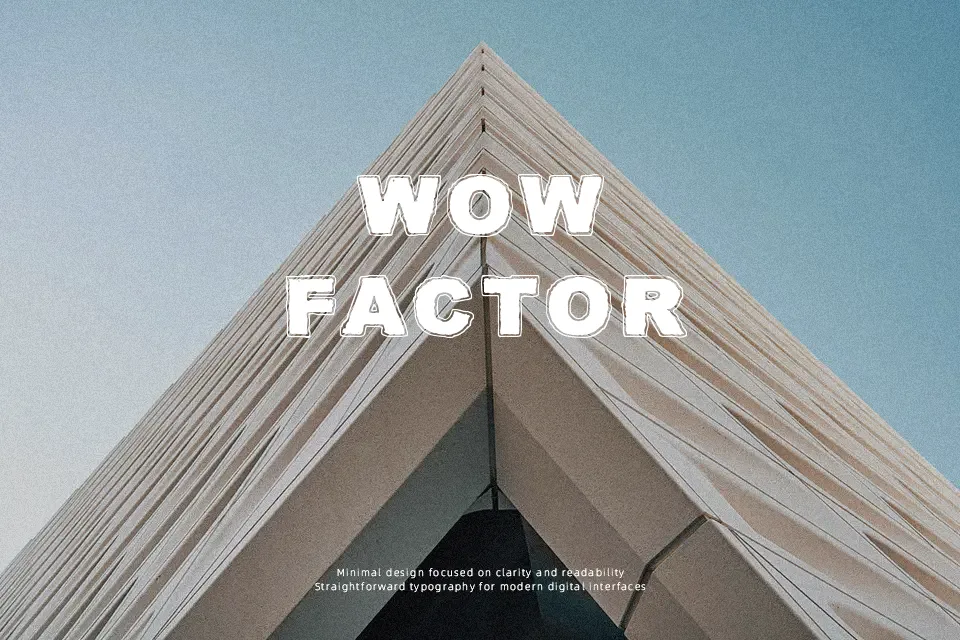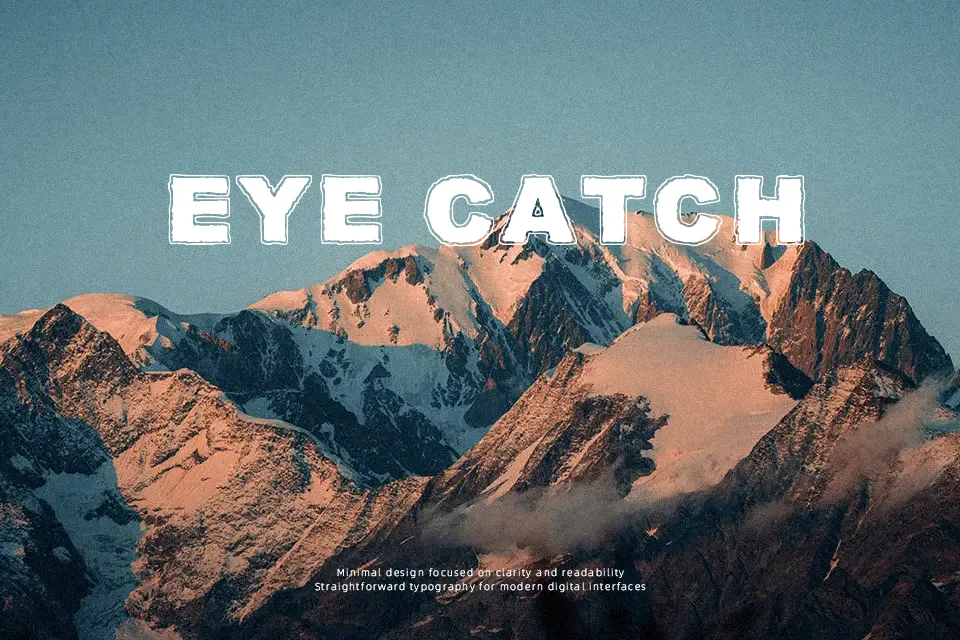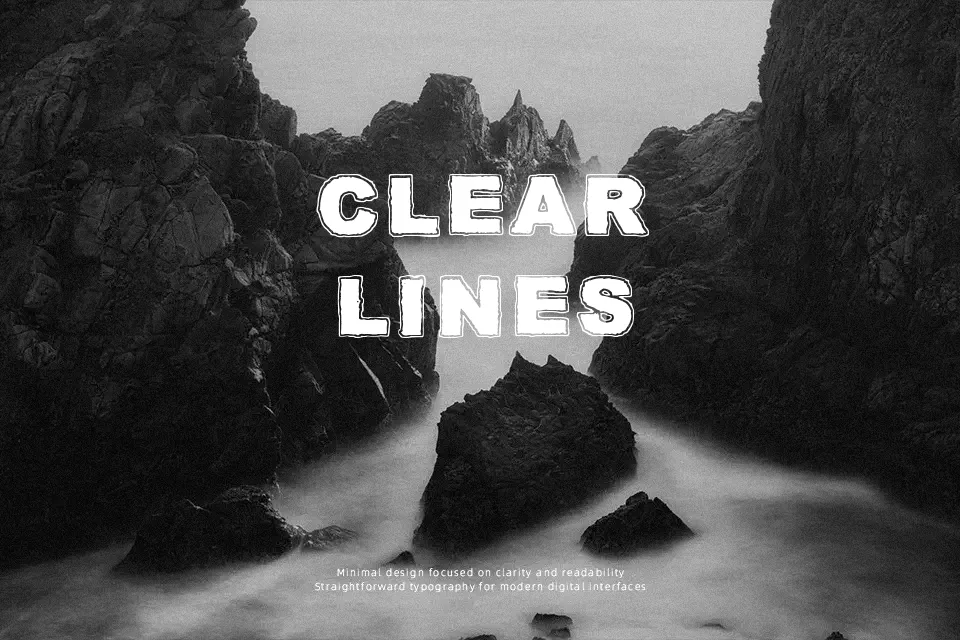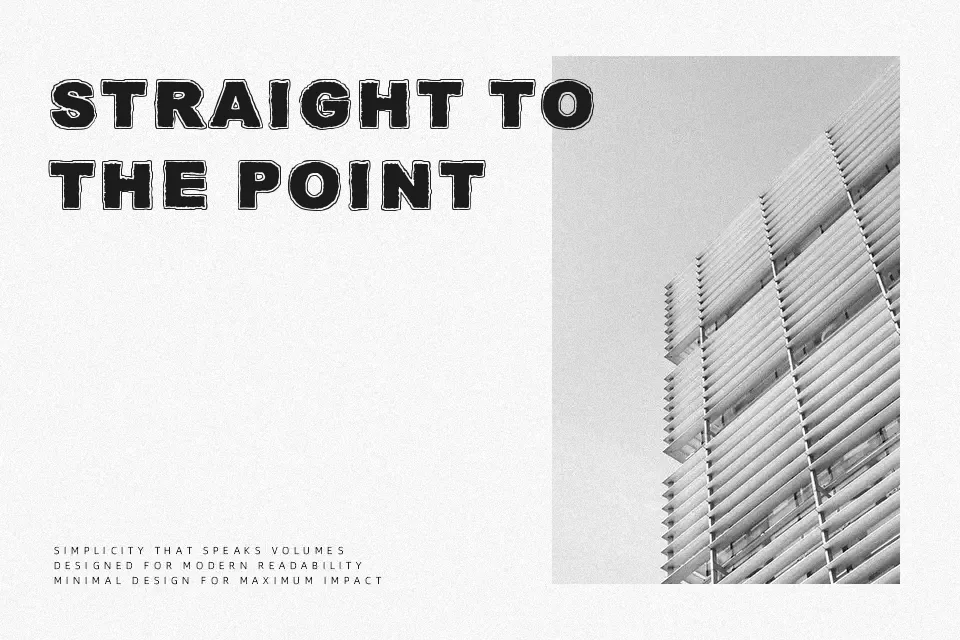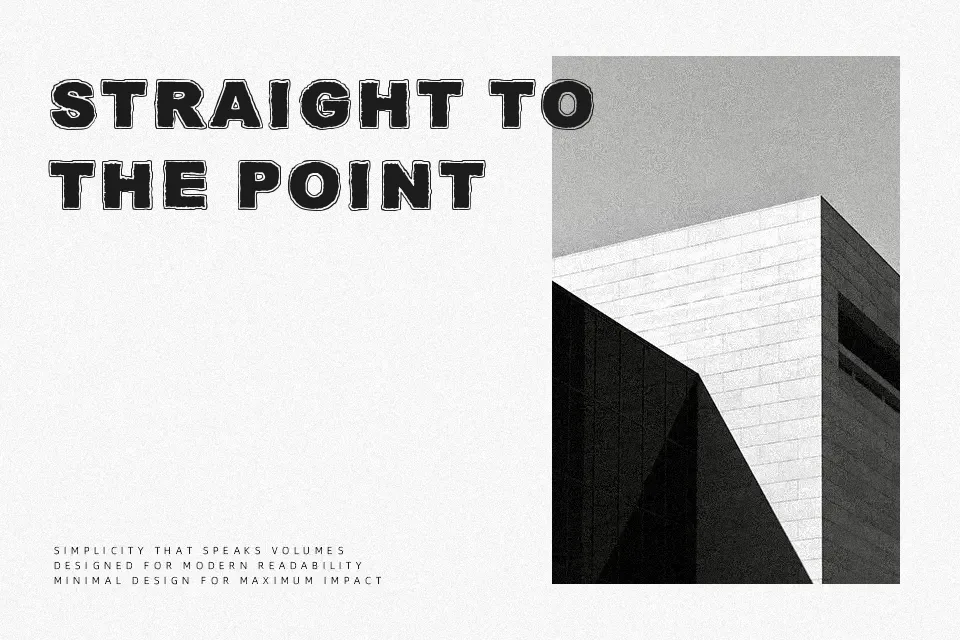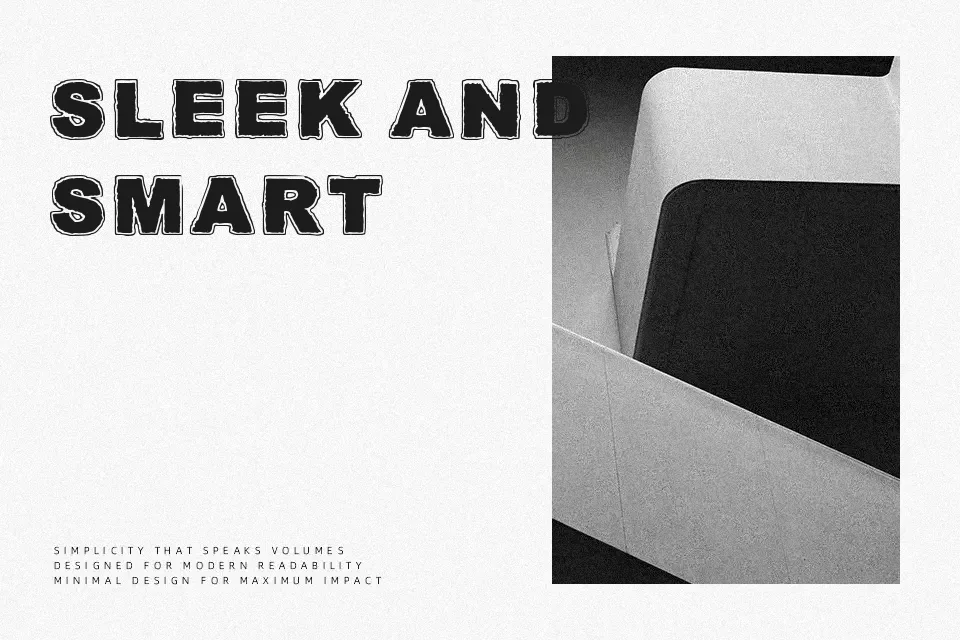
Quark Zone Font
Designed by Juha Korhonen
Featuring heavy letterforms with an eroded, textured outline, the Quark Zone Font establishes a striking and rugged aesthetic. The thick strokes and intentional irregularities give the design a raw, rebellious energy that immediately captures attention. Balanced spacing ensures the characters maintain strong visual rhythm when applied to bold packaging, urban apparel graphics, and energetic headline displays. The distressed details provide excellent texture at larger sizes, but these decorative forms reduce continuous reading comfort in smaller text. Because the weathered outline becomes less defined when scaled down, the typeface performs best when displayed at larger sizes where its grunge characteristics remain fully visible and effective.
urban apparel graphics
skateboarding brand logos
energetic event flyers
spreadsheet data
Perfect for branding, fashion, and headline, with a bold and decorative style.